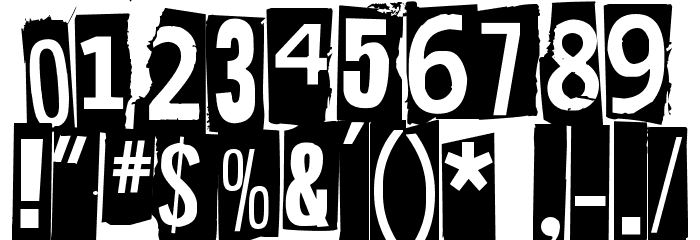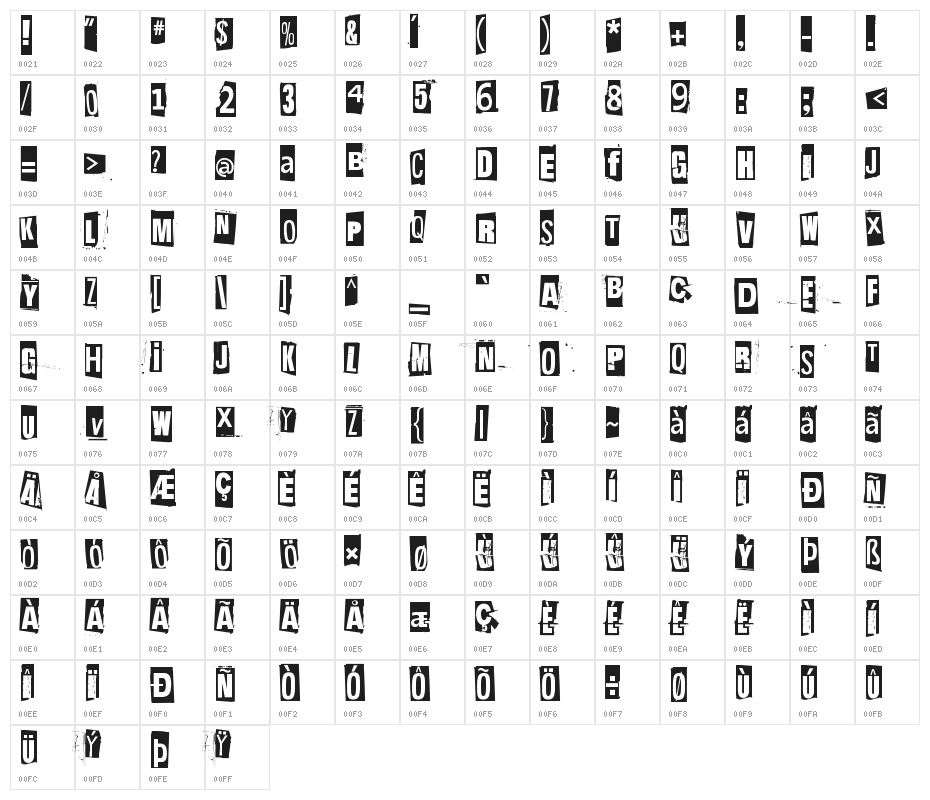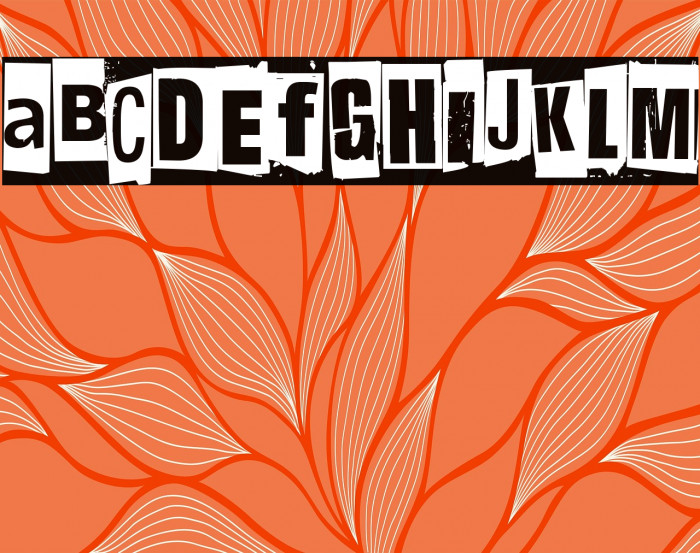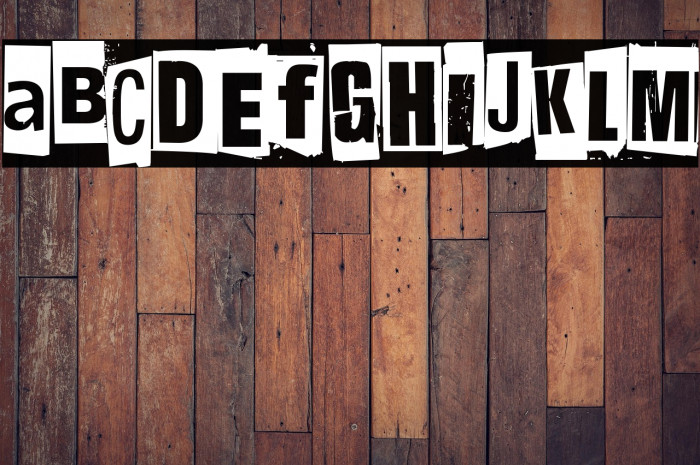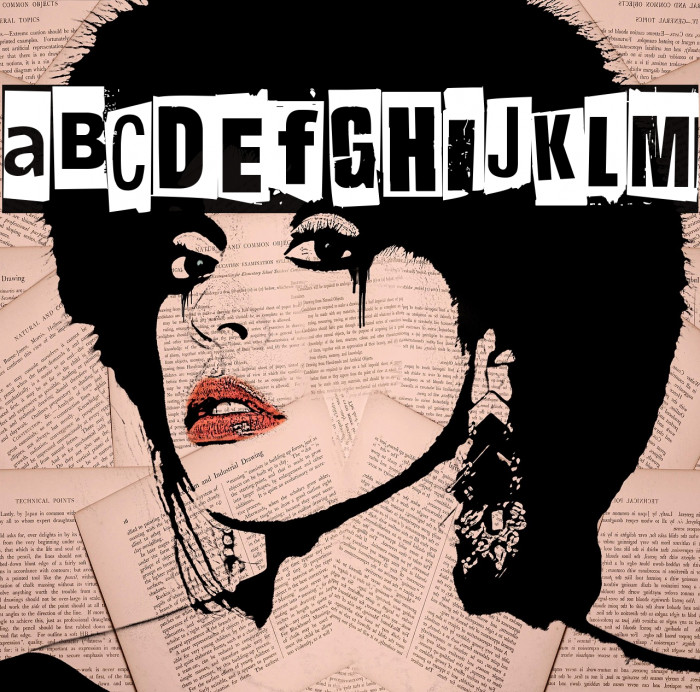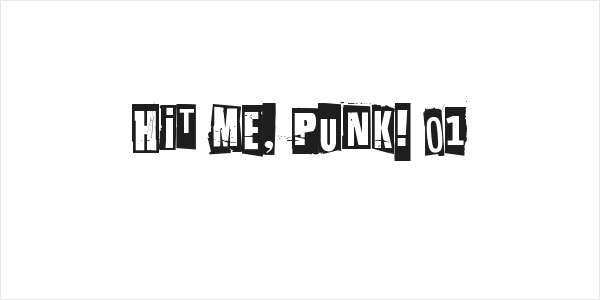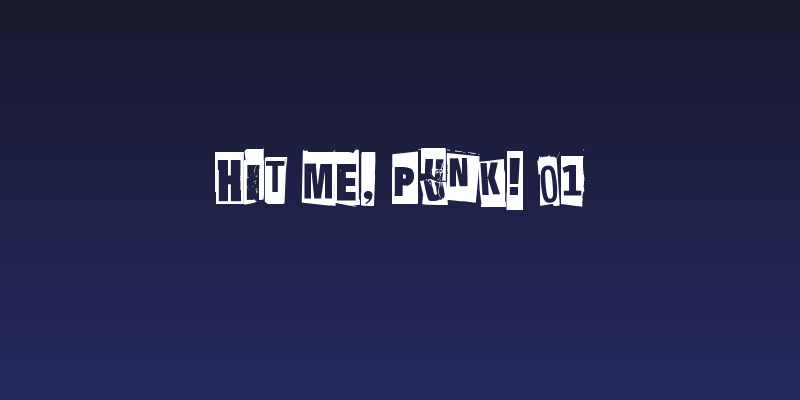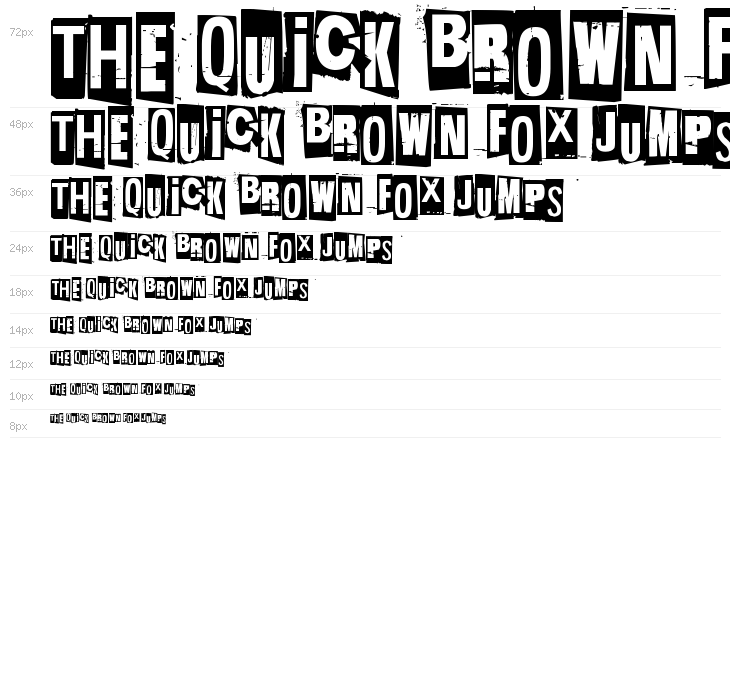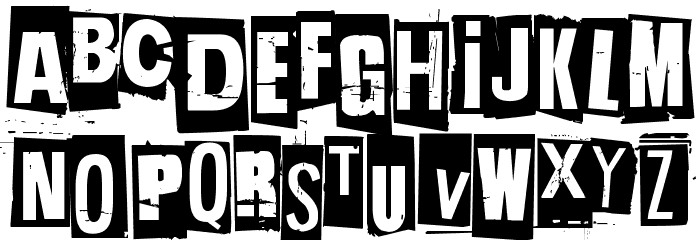
Hit me, punk! 01 Font
Hit me, punk! 01 Description
This font embodies a rebellious and edgy aesthetic, reminiscent of punk rock and DIY zine culture. Each character appears as if it has been cut out from a magazine or newspaper, creating a collage-like effect. The letters are bold and irregular, with varying sizes and shapes, adding to the chaotic and energetic feel. The use of high contrast between black and white enhances the dramatic impact, making it ideal for grabbing attention. The font's rough and distressed texture gives it an authentic, gritty look, perfect for projects that require a raw and unpolished vibe.
| Overall Style | Punk, Edgy, Rebellious |
| Proposed Projects | Album covers, posters, zines, streetwear branding, and rebellious-themed designs. |